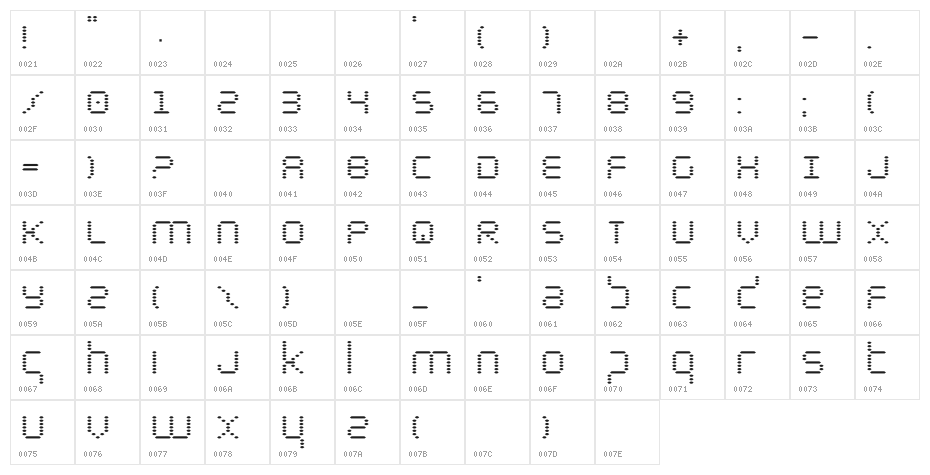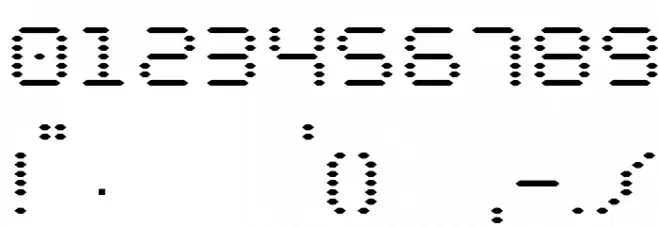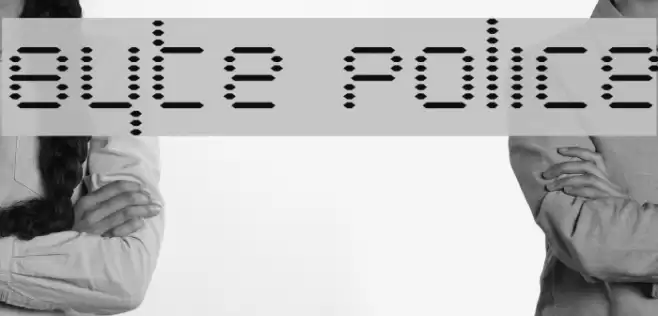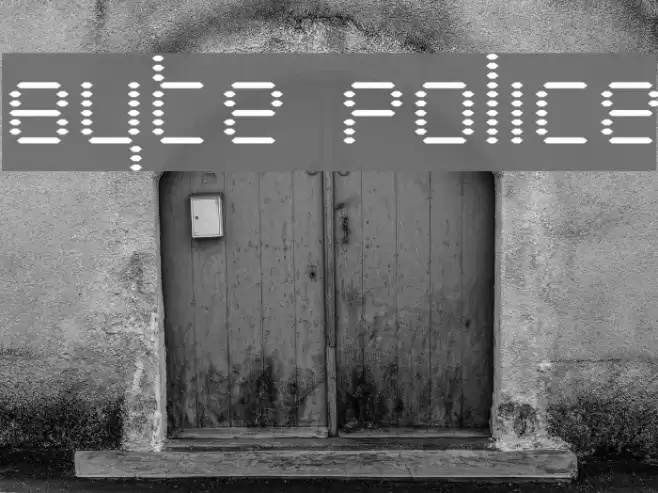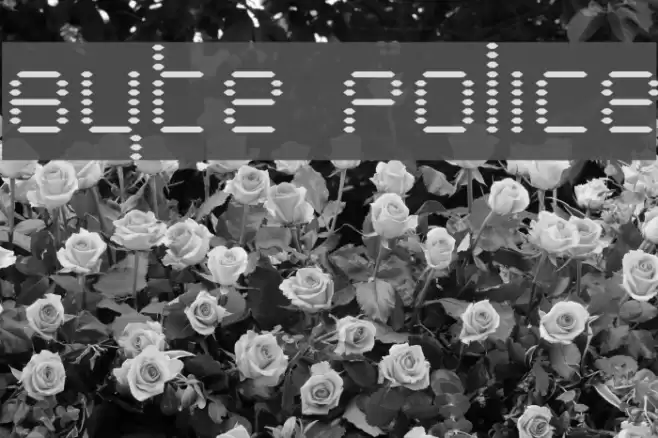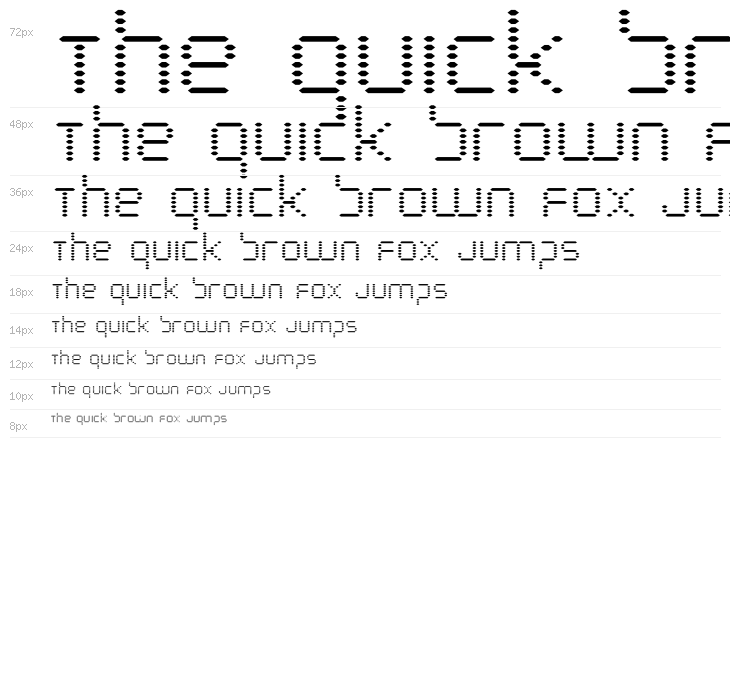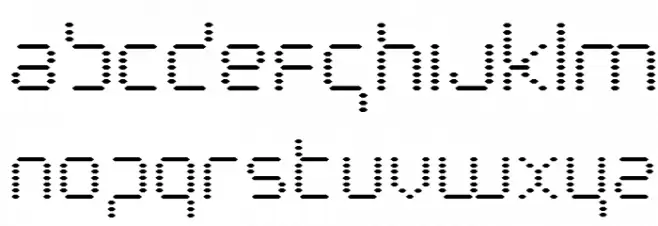
Byte Police Font
| Cas d'utilisation | Logos, Headlines, Digital displays |
| Projets proposés | Ideal for digital displays, tech-themed designs, retro gaming graphics, and any project requiring a futuristic or digital look. |